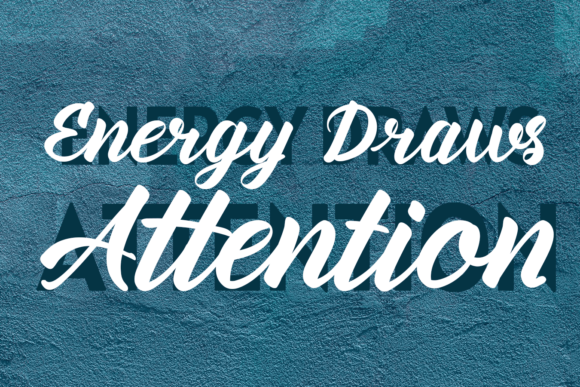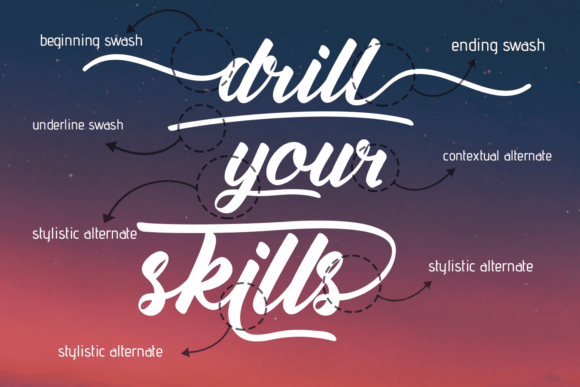
Amiable Forsythia Font
db-ku.com - Script & Handwritten -- Amiable Forsythia is a superb handwritten font that will make your work stand out through its elegant and curvy lines. It is perfect for product packaging, branding project, magazine covers, social media, wedding, or just used to express words above the background.